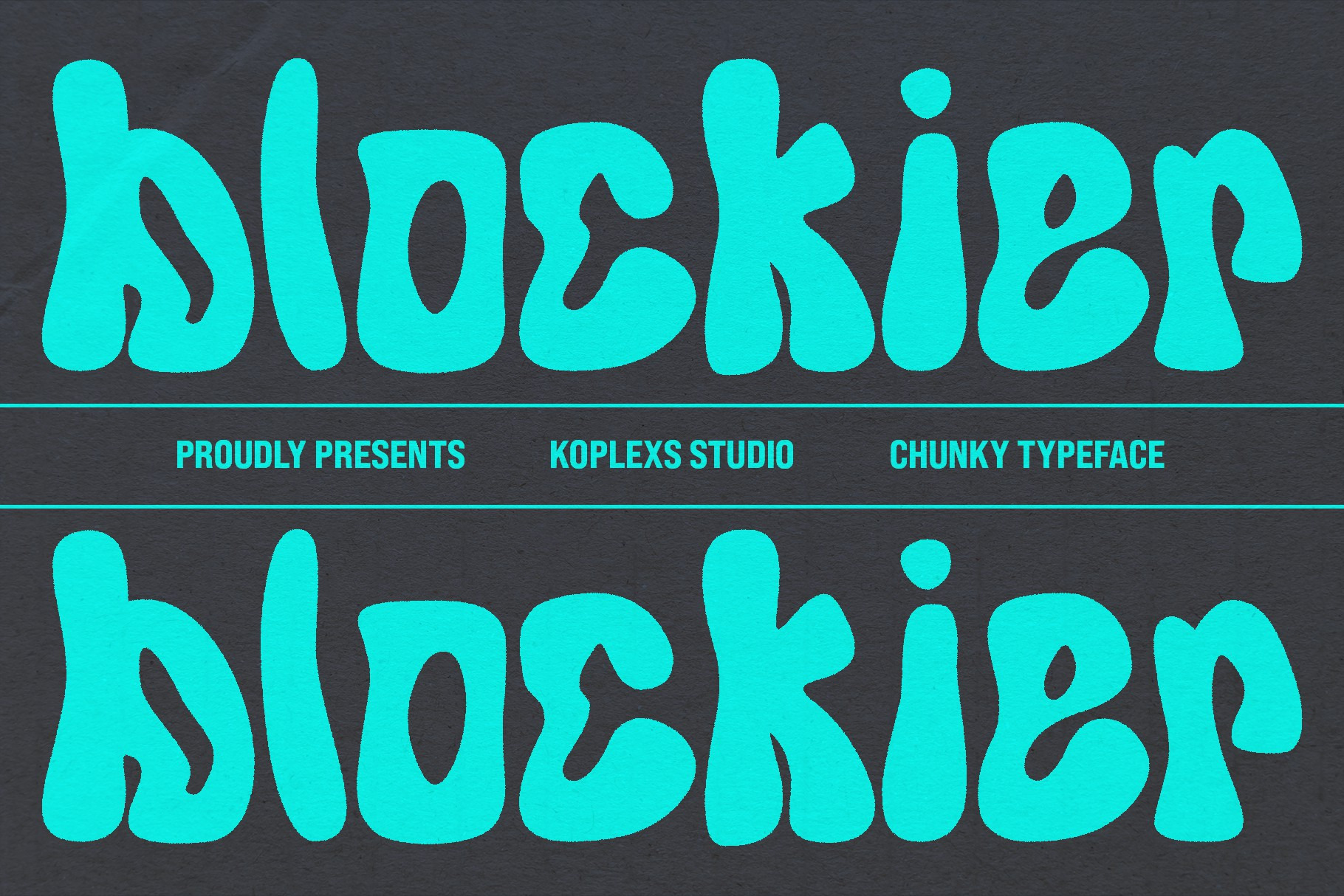
Blockier: Retro Groovy Font
Blockier, crafted by Koplexs Studio, is a bold and playful retro-groovy font that captures the essence of the 1960s and 1970s with a modern twist. This chunky typeface is perfect for projects that need to stand out with a touch of nostalgia and vibrant energy. Its thick, rounded letters convey a sense of fun and liveliness, making it ideal for headlines, logos, posters, and various creative applications.
The primary display of Blockier showcases its ability to grab attention with its bold and groovy nature. The vibrant blue letters against a dark background highlight the font’s unique style and eye-catching design. This font is perfect for creating memorable and impactful visuals, ensuring your message is conveyed with personality and flair.
Whether you’re designing for apparel, branding, posters, or product packaging, Blockier’s playful and nostalgic design ensures your work stands out. Its comprehensive character set includes uppercase and lowercase letters, numerals, and punctuation, providing all the elements needed for cohesive and visually stunning typography.
Blockier: Retro Groovy Font by Koplexs Studio is the ultimate choice for designers looking to infuse their projects with bold, retro charm. Its thick, rounded letters and versatile applications make it perfect for adding a touch of fun and nostalgia to any design. Bring groovy vibes to your creative projects with Blockier today! Explore more and make Blockier a part of your design toolkit.